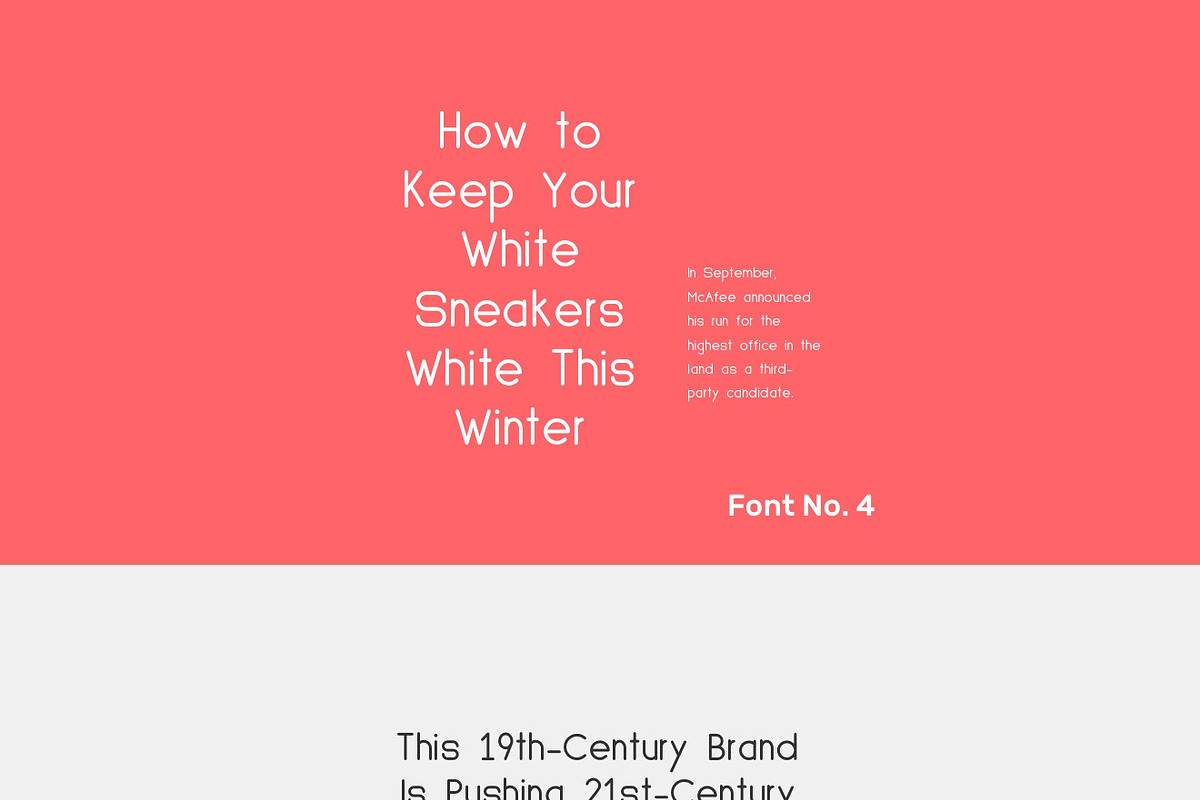
Match Font
Match Font by Designerbundle is a font selected for branding, posters, packaging, typography.
- Match Font is a modern font brought to you by the team at Designer Bundle It contains upper and lowercase characters, numerals and a large r
Match Font by Designerbundle fits naturally into Branding, posters, packaging, typography.